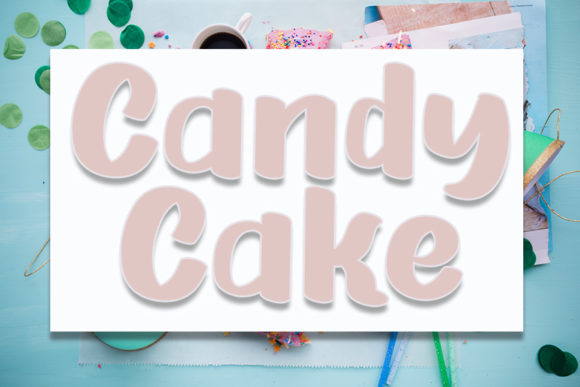
The Sweet Spot: Discovering the Charm of Candy Cake Font
I’ll never forget the time I was working on a birthday card design for a client’s kid. The brief was simple: create something fun, colorful, and playful. But, as I started browsing through my font library, I realized I was stuck. The fonts either looked too bland, too thin, or just plain boring. That’s when I stumbled upon Candy Cake Font. It was love at first sight! 💕
The moment I opened the font, I knew I had found the perfect fit. The letters were thick, yet elegant; sweet, yet balanced. It was as if the font was designed specifically for my project. In this article, I’ll share my experience with Candy Cake Font, its features, and how to make the most of it in your designs.
What I Love About Candy Cake Font ✨
- ✅ Balanced and varied: The font has a perfect balance of thick and thin letters, making it easy to read and visually appealing.
- ✅ Sweet and playful: The font has a playful, whimsical feel to it, making it perfect for designs that require a touch of fun.
- ✅ OpenType features: The font comes with a range of OpenType features, including glyphs and stylistic alternates, which allow for endless creative possibilities.
- ⚠️ Limited use in very small sizes: While the font looks great in larger sizes, it may not be the best choice for very small text, as some letters may appear too thick or bold.
- ⚠️ No italic version: Unfortunately, the font does not come with an italic version, which may limit its use in certain designs.
Candy Cake Font was designed with the goal of creating a sweet, playful script font that’s perfect for designs that require a touch of fun. The designer wanted to create a font that’s balanced and varied, with a mix of thick and thin letters that make it easy to read and visually appealing.
Q: What type of projects is Candy Cake Font best suited for?
A: Candy Cake Font is perfect for designs that require a playful, whimsical touch, such as birthday cards, party invitations, and children’s book illustrations.